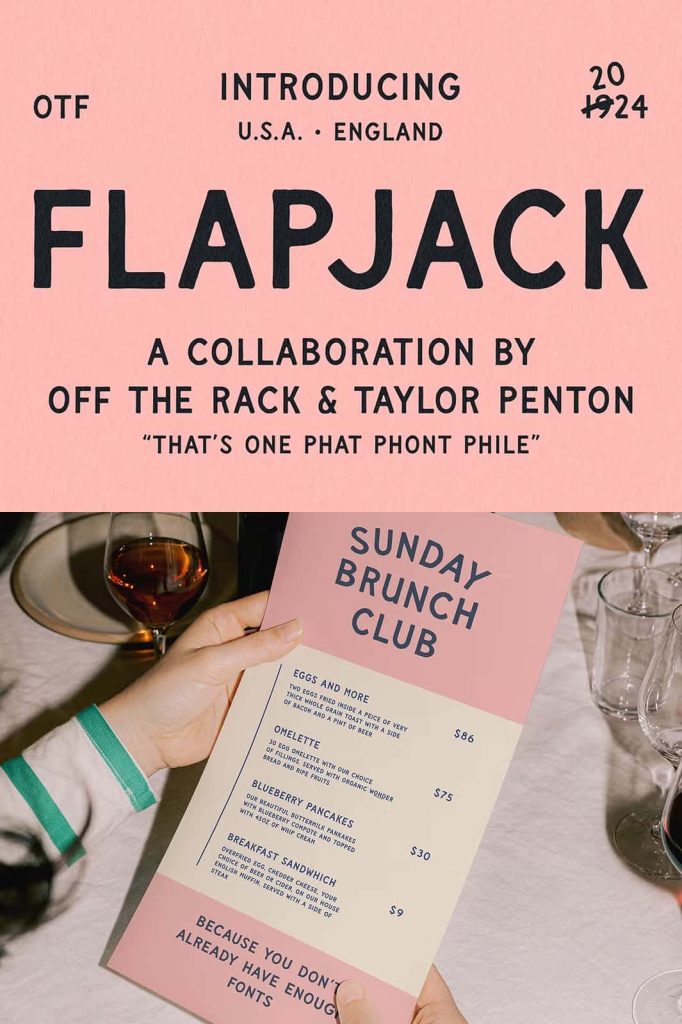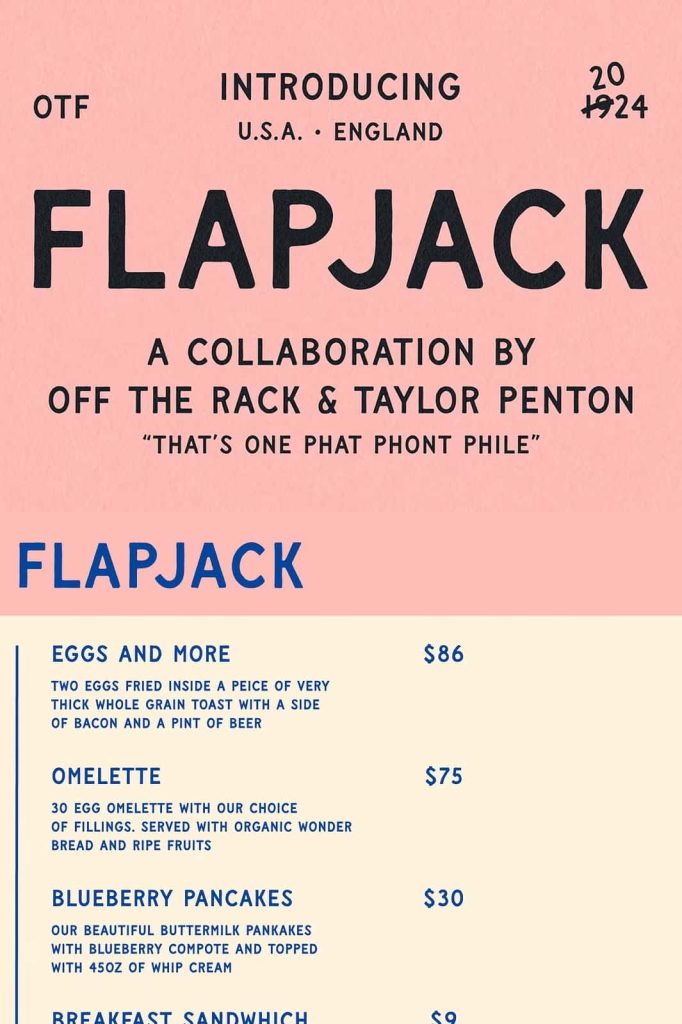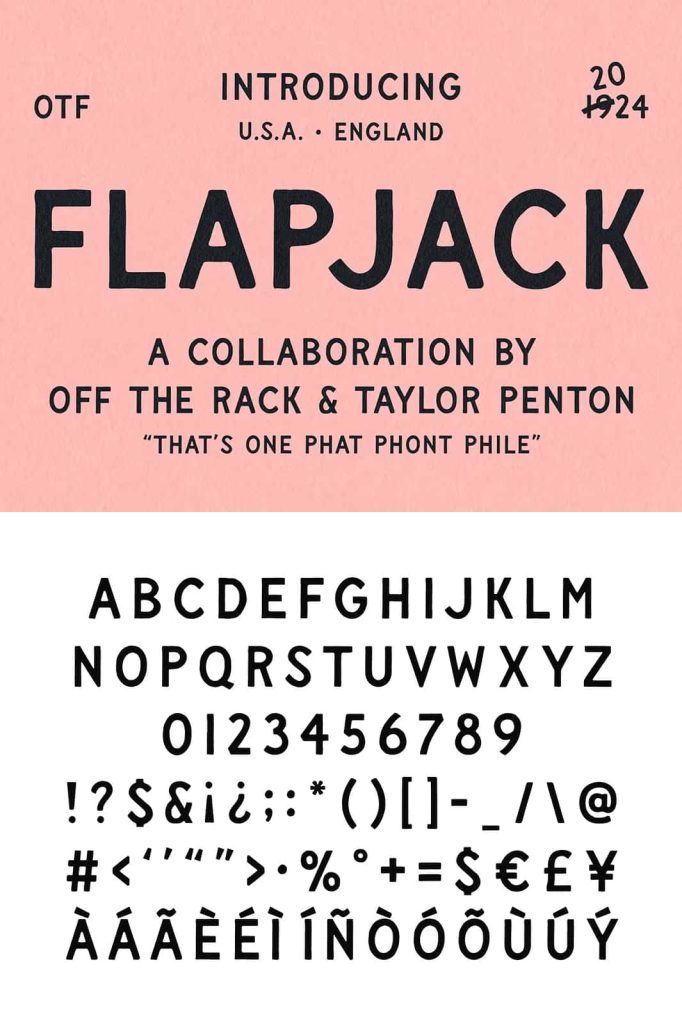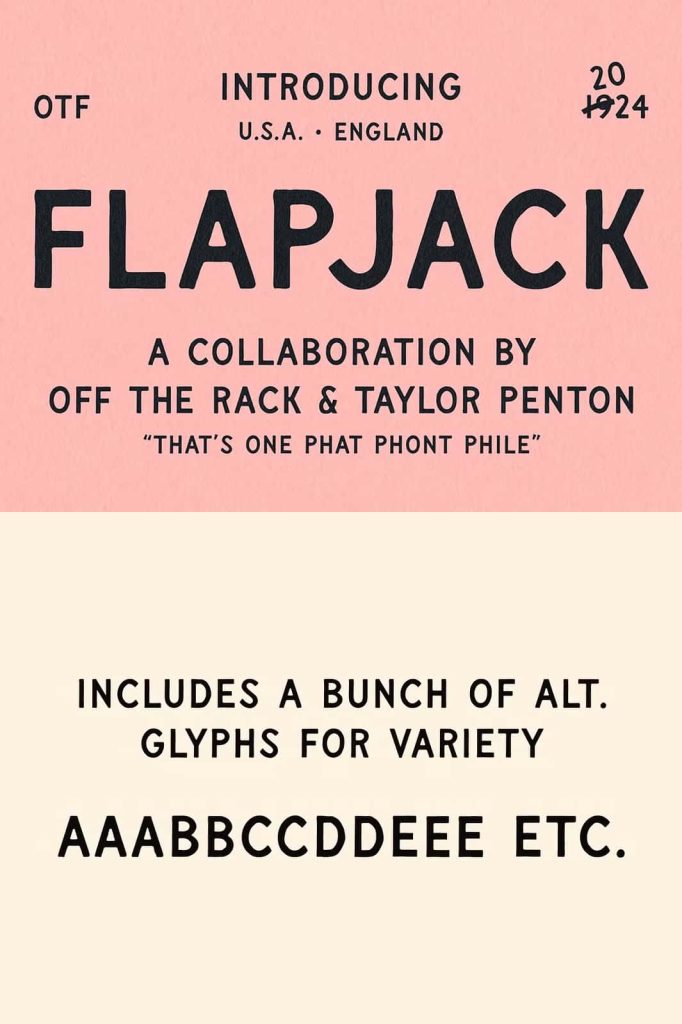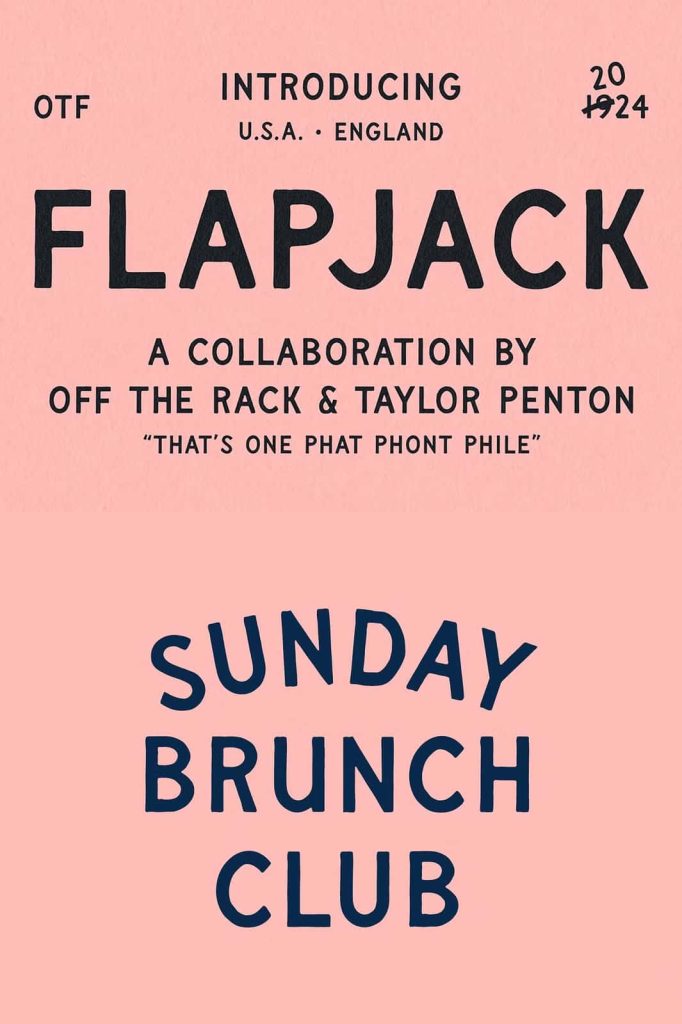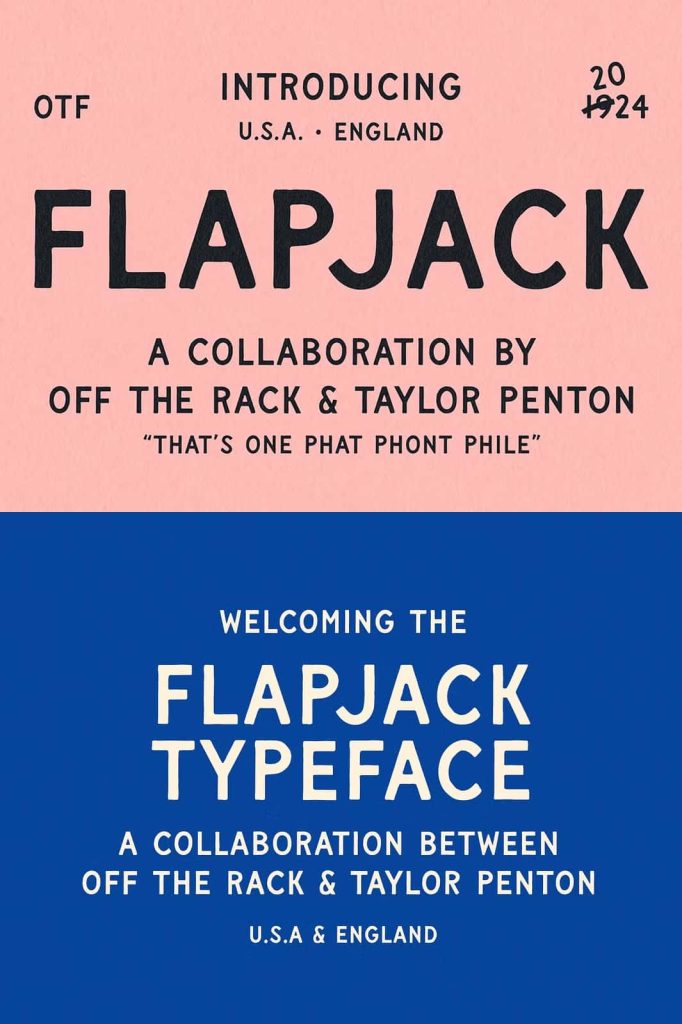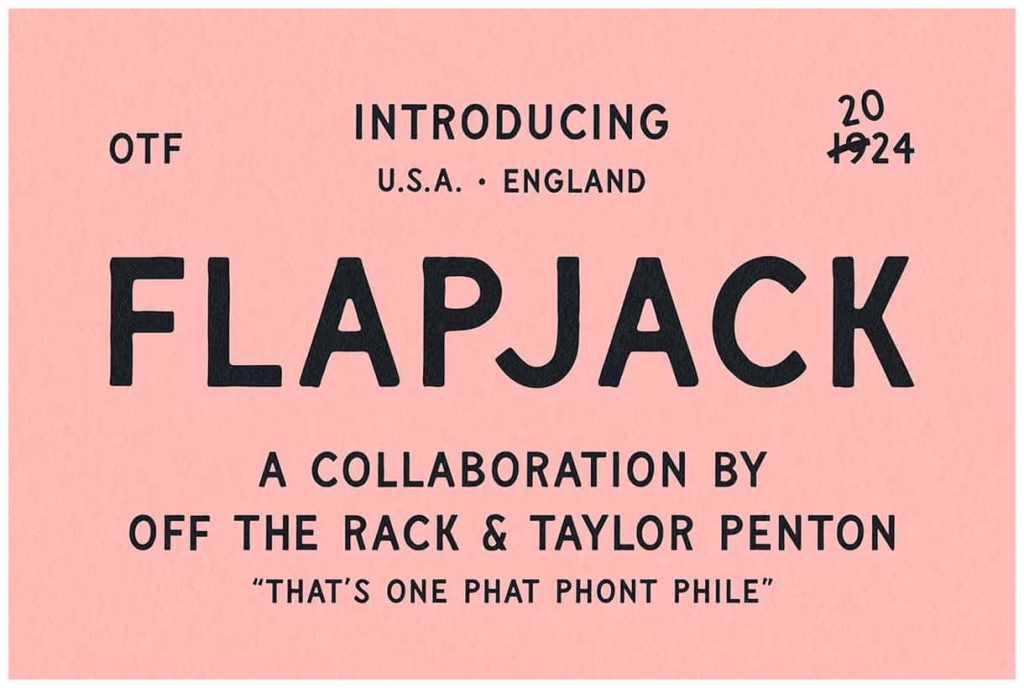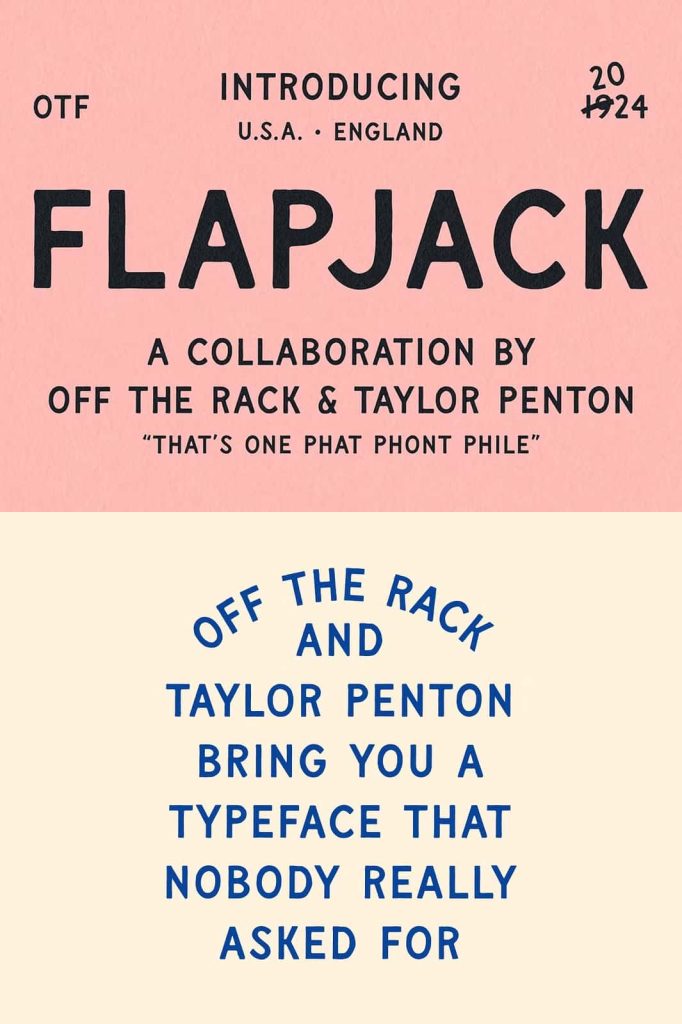
Flapjack Font – A Hand-Drawn Vintage Typeface Inspired by Early 20th-Century Signage
Flapjack Font captures the nostalgic charm of early 20th-century design with a bold, handcrafted touch. Inspired by the beautifully painted shop signs and advertising billboards of the past, this vintage-style typeface brings a sense of authenticity and warmth to any project. Each letter of Flapjack was lovingly drawn by hand, echoing the craftsmanship of traditional sign-writers, before being carefully refined into a digital form that maintains the texture and character of true hand lettering.
Rediscover the Spirit of Classic Hand-Painted Typography
At its core, Flapjack Font is a celebration of the golden age of typography—a time when every letter was drawn with precision, passion, and purpose. The designers behind Flapjack took inspiration from historical signage and traditional lettering techniques used in early 20th-century storefronts, advertisements, and painted billboards. This meticulous approach results in a font that feels timeless, authentic, and full of character.
Every imperfection, curve, and angle of Flapjack reflects the personal touch of human craftsmanship. Rather than relying on mechanical uniformity, this typeface embraces organic forms that add charm and soul to your words. The result is a typeface that looks both vintage and alive—perfect for designers seeking warmth, authenticity, and a touch of old-world craftsmanship in their creative projects.
Perfect for Branding, Packaging, and Vintage Design Projects
Flapjack Font is built to stand out. Its bold lines, organic curves, and vintage appeal make it a powerful choice for branding, logo design, and packaging that requires a nostalgic touch. Whether you’re designing for a coffee shop, a craft brewery, a barber shop, or a retro-inspired clothing brand, Flapjack helps convey authenticity, heritage, and creativity.
Beyond logos and packaging, Flapjack works beautifully for posters, signage, labels, invitations, and editorial layouts. It can easily transform a modern project into a timeless piece that evokes the charm of an era defined by craftsmanship and attention to detail.
Ideal Uses for Flapjack Font
- Vintage Branding: Create logos and brand identities that feel handcrafted and timeless.
- Product Packaging: Add character to coffee, craft beer, or artisanal food packaging.
- Posters and Signage: Capture the essence of classic billboards and storefronts.
- Editorial and Advertising: Use it in magazine layouts and promotional materials for a nostalgic flair.
- Social Media and Digital Graphics: Stand out online with unique, hand-drawn typography.
- Merchandise and Apparel: Add vintage personality to t-shirts, labels, and prints.
Why Designers Love Flapjack Font
Designers are drawn to Flapjack Font because of its handcrafted authenticity and artistic versatility. It combines the soul of early 20th-century design with the practicality of modern digital tools. The font’s natural texture and hand-drawn imperfections give designs a lived-in, organic look that feels genuine and inviting.
Its strong personality makes it a favorite among creatives working on branding projects that require individuality and emotional connection. Unlike clean, geometric fonts, Flapjack embraces its rough edges—bringing a human touch to typography in a world of digital precision.
Key Features of Flapjack Font
- Hand-Drawn Letterforms: Crafted with care to replicate the authentic feel of vintage signage.
- Vintage-Inspired Design: Based on early 20th-century shop signs and painted billboards.
- Versatile Use: Ideal for logos, posters, packaging, and more.
- Authentic Texture: Maintains the imperfect charm of hand lettering.
- Modern Flexibility: Designed for both print and digital applications.
Conclusion: Bring Vintage Craftsmanship to Your Designs with Flapjack Font
Flapjack Font is more than a typeface—it’s a tribute to the artistry of traditional sign painting. Its hand-drawn construction, vintage inspiration, and bold visual personality make it the perfect tool for designers who want to infuse their projects with warmth, nostalgia, and originality. Every letter tells a story of craftsmanship, turning ordinary text into something special and timeless.
Whether you’re building a brand, designing packaging, or creating artistic layouts, Flapjack Font gives you the power to evoke the beauty of the past while keeping your designs relevant and engaging today.